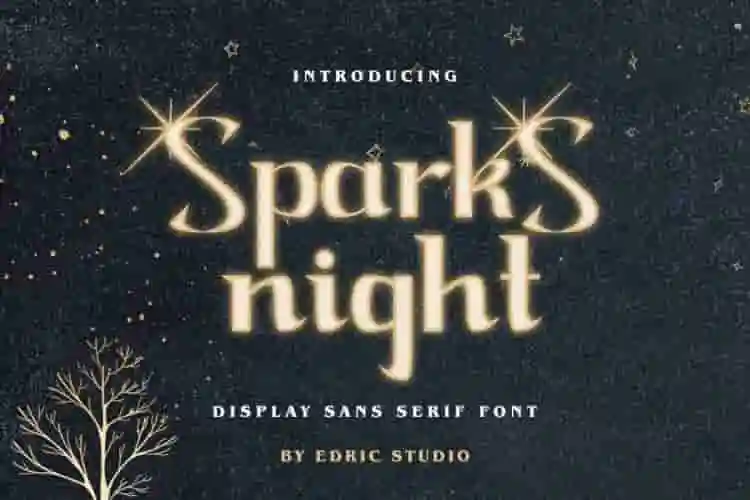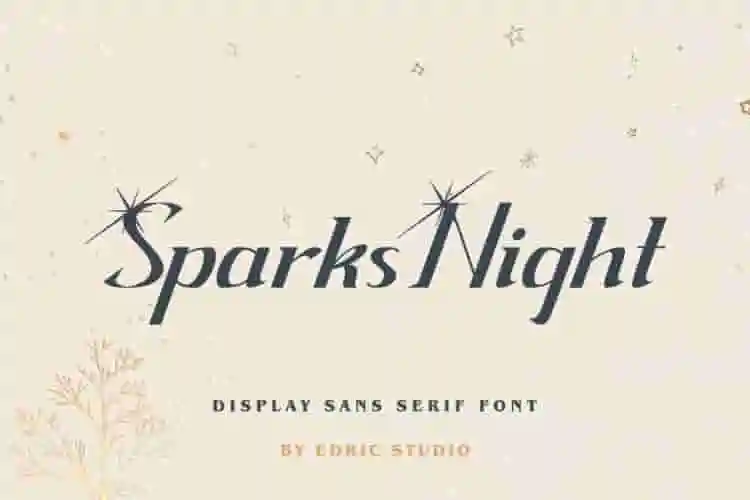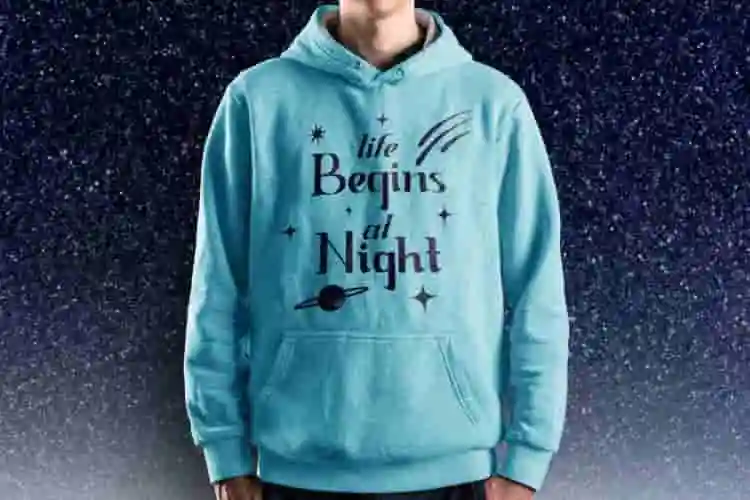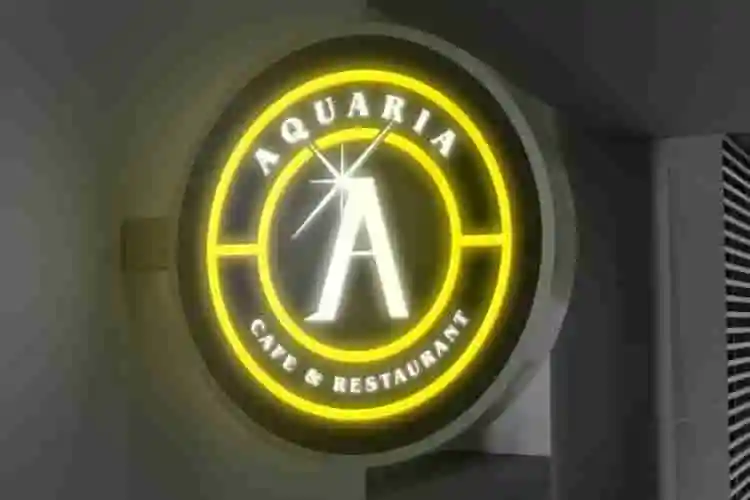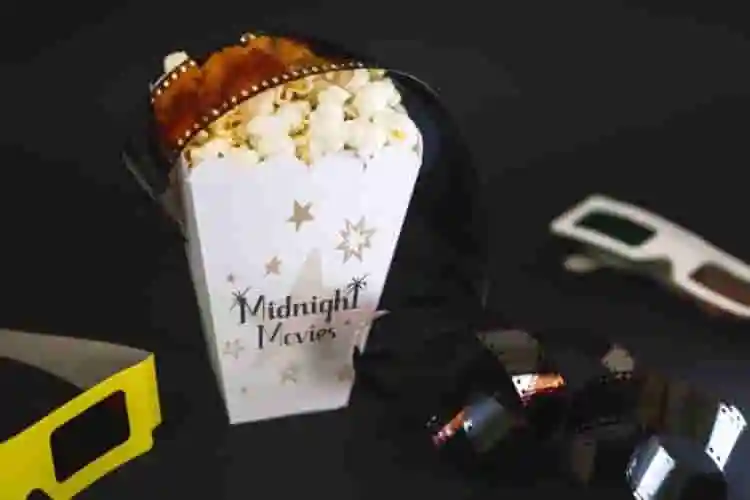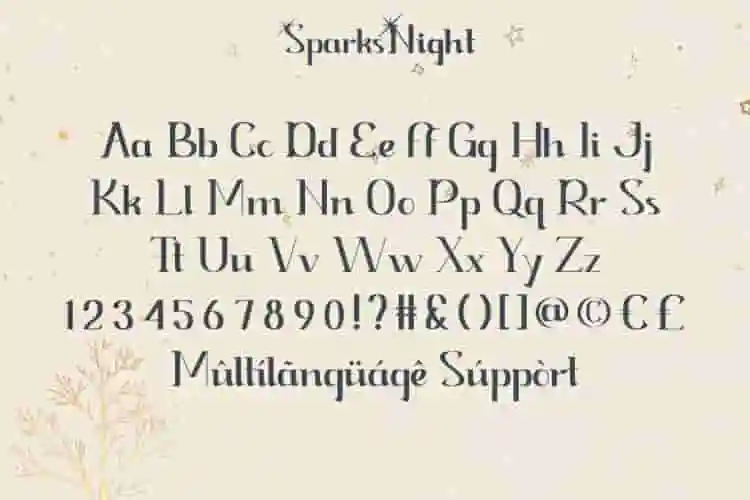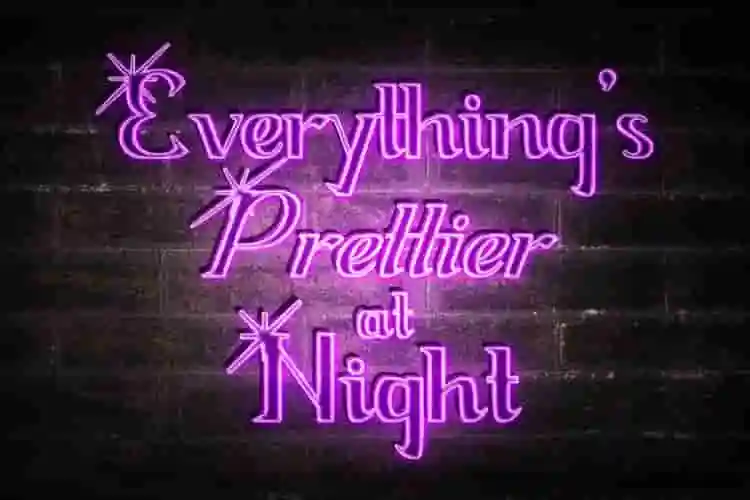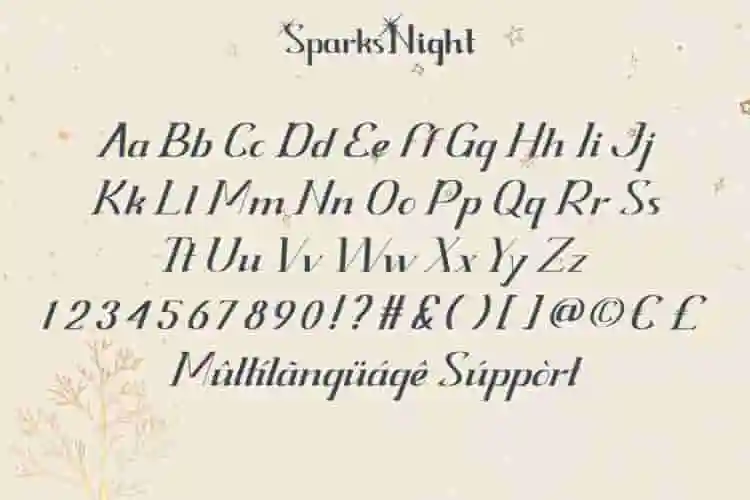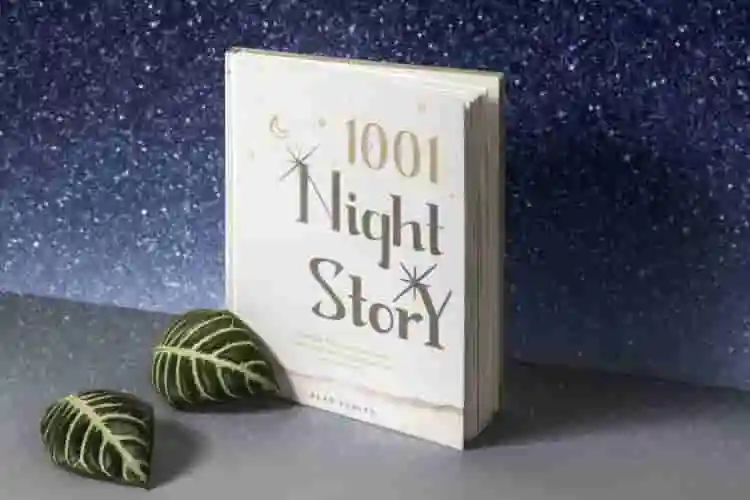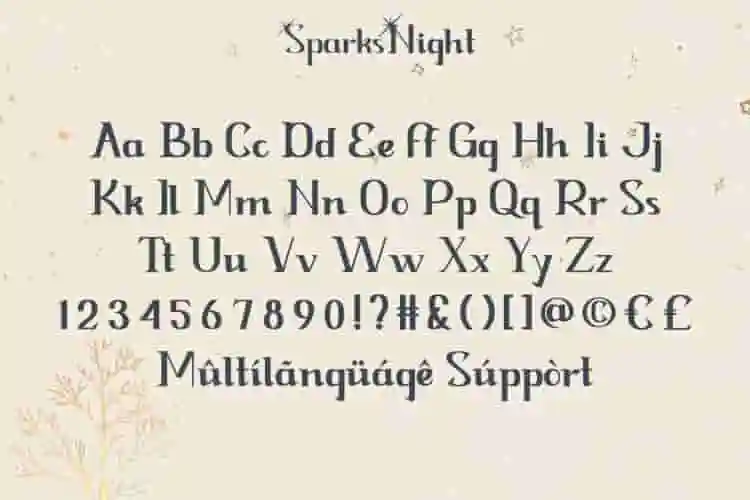
Sparks Night Display Font
Sparks Night Font is a fancy, sparkling display font with decorative alternatives letters. There are three styles for the basic of this font : Regular, Italic and Bold. Again, this font features alternative letters to show the shining sparks ornament. Use this font to add that special style to your any special designs including party flyer, events, festival, birthday, graduations, kids products etc
Looking for a font that makes your message shine? Introducing Sparks Night Display Font – a modern, edgy, and dynamic display typeface designed to electrify your visuals and make every word stand out.
ith its sharp lines, bold curves, and futuristic vibe, Sparks Night is ideal for logos, posters, album covers, apparel, event flyers, and everything in between. Whether you’re designing for nightlife, tech, fashion, or music, this font brings high-energy character to your work.
Step into the spotlight with Sparks Night Display Font, a high-impact typeface crafted for bold ideas and modern aesthetics. Designed for those who don’t blend in, Sparks Night is your go-to font for making statements that stick.
• Bold Display Impact
• Modern, Futuristic Style